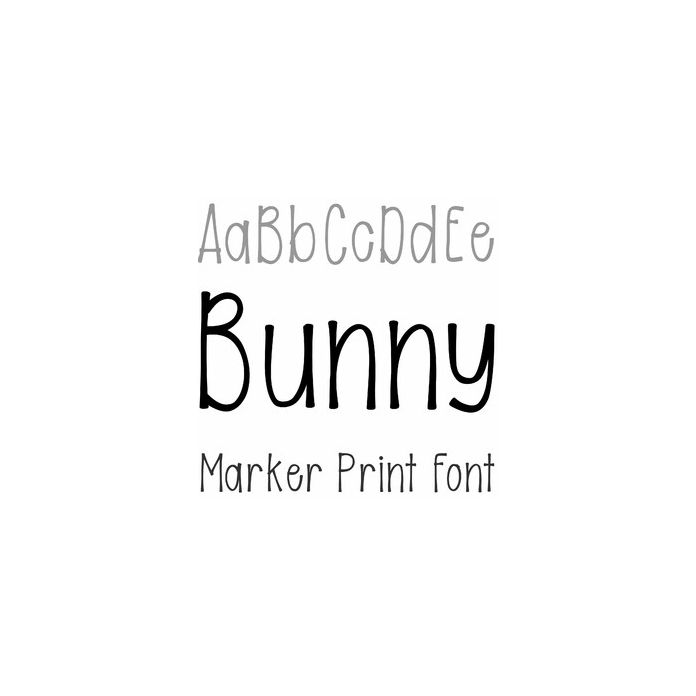
bunny marker print font
Bunny Marker Print is a cute bouncy handwriting font. Fun for cards and projects. Includes alphabet, numbers, and punctuation.